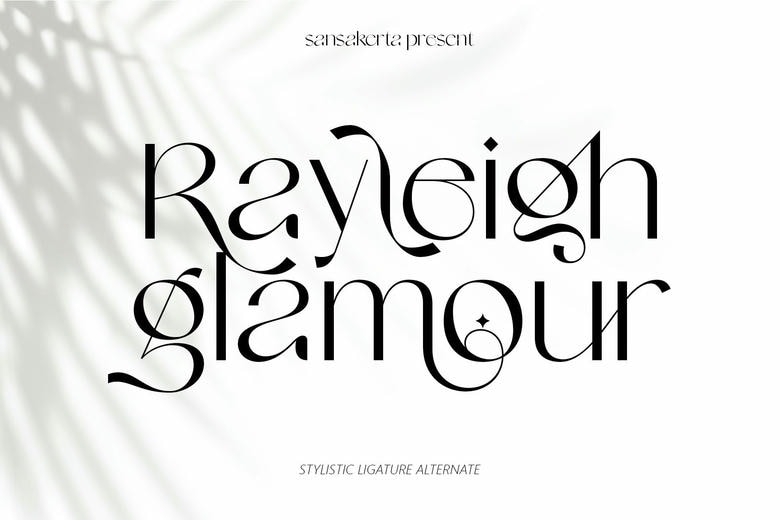
Rayleigh Glamour Font
Rayleigh Glamour is a contemporary typeface in a sans serif style designed by Sansakerta with a modest and traditional theme that immediately it looks so perfect and beautiful in its classic form. This typeface is ideal in order to make your work look fancy and luxurious. Ideally suited to designing of simple, clean, lifestyle design including logos, title, and magazine among others.